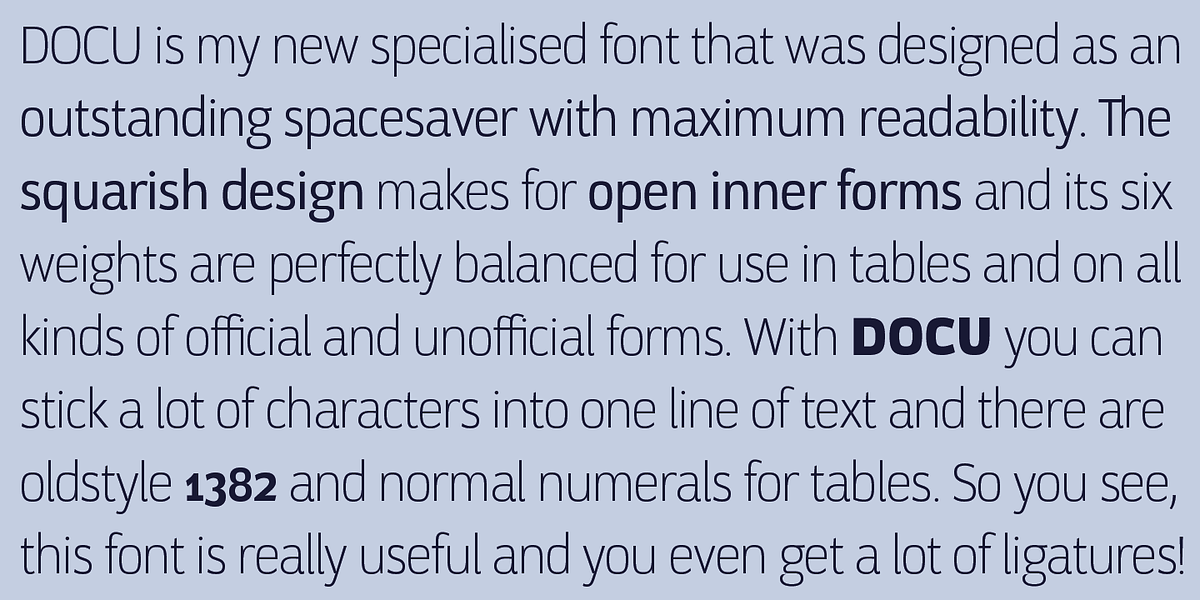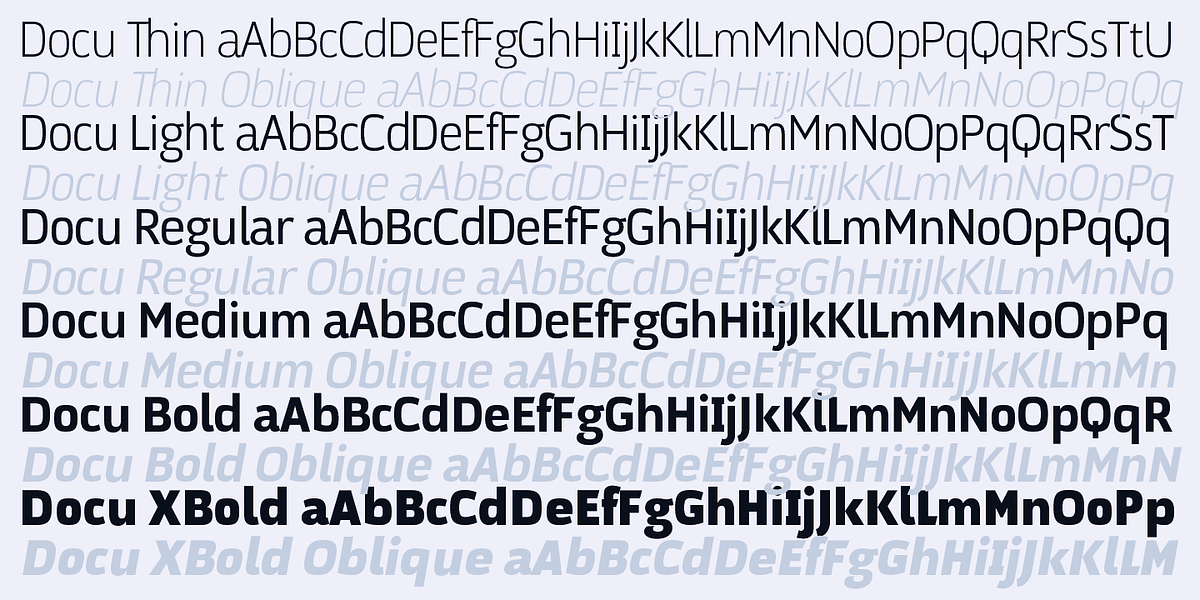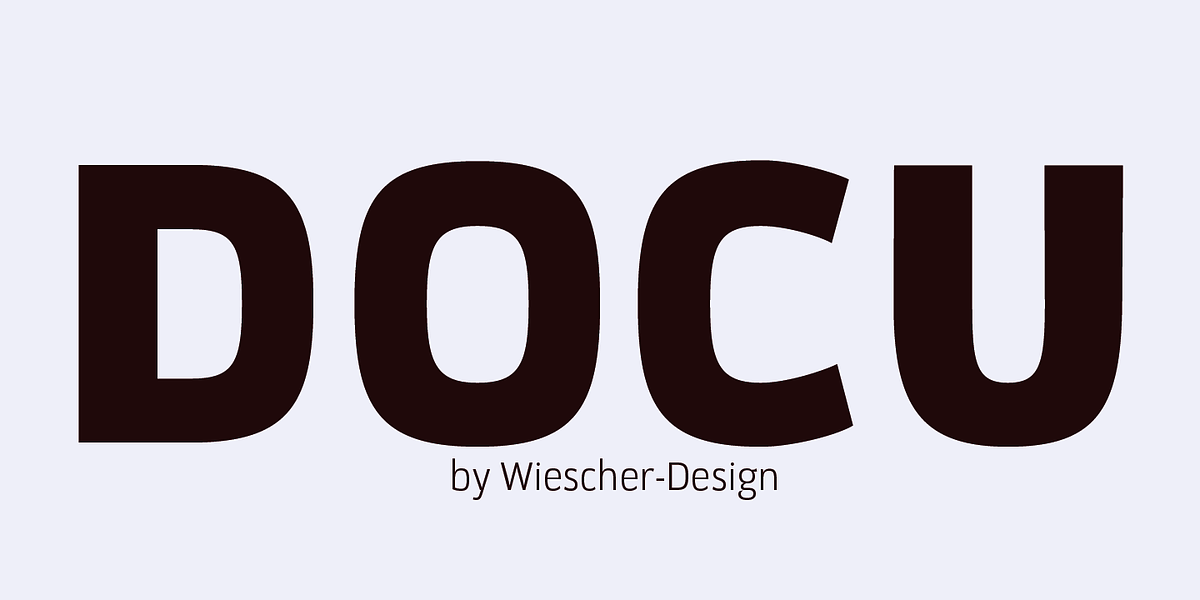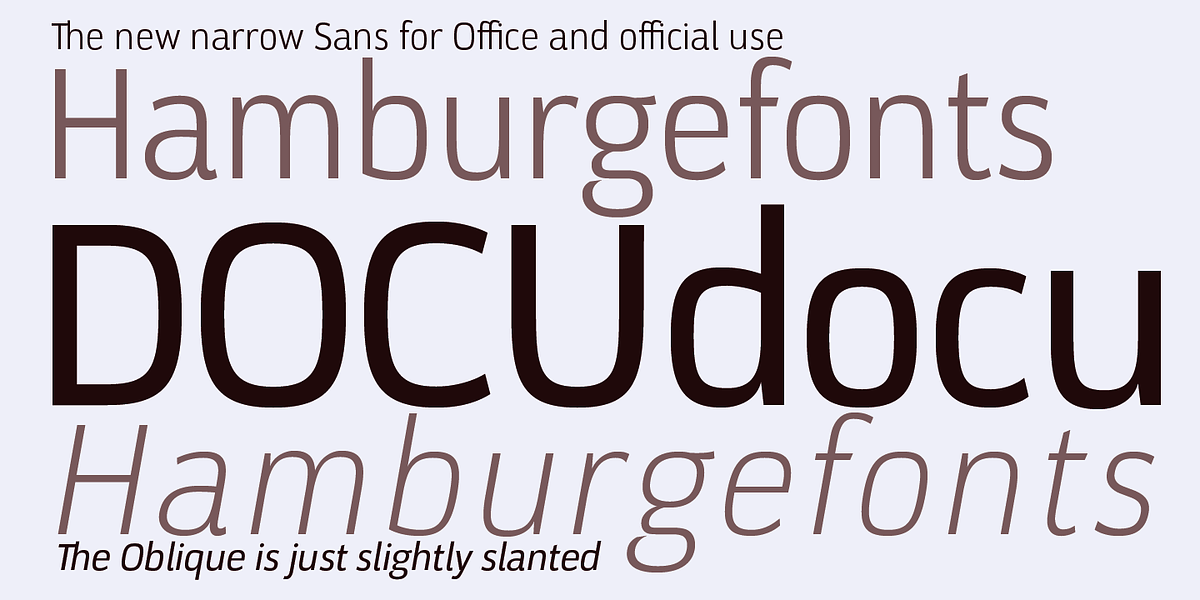
Docu
DOCU is a geometric sans serif font designed for optimal readability in text-heavy applications. Its narrow width allows for efficient use of space, making it suitable for documents, reports, and paragraphs. The font includes over 700 glyphs, small caps, ligatures, and table-aligning numbers in both normal and oldstyle variants, supporting the entire Latin character set.